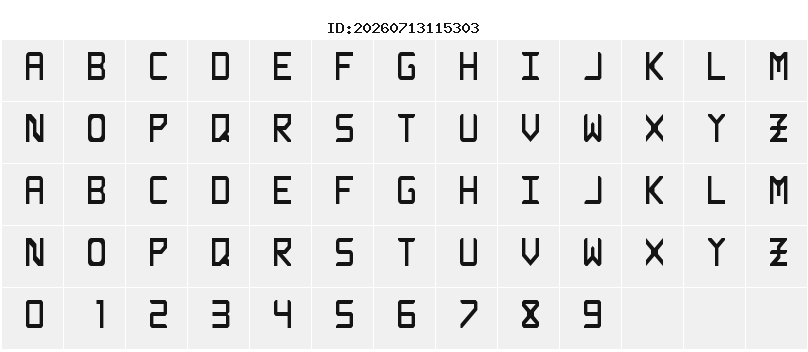
Rabbid Highway Sign Caps Narrow Preview
• Font Name: Rabbid Highway Sign Caps Narrow
• Full Font Name: Rabbid Highway Sign Caps Narrow Regular
• Designer: Robert Jablonski
• Description: ‚ÄúRabbid Highway Sign Caps Narrow‚Äù was built with FontStruct ‚ÄúRabbid Highway Sign Caps Narrow‚Äù is based on ‚ÄúRabbid Highway Sign Caps‚Äù by ‚ÄúRobert Jablonski‚Äù (http://fontstruct.com/fontstructors/rabbidbahh)
About Rabbid Highway Sign Caps Narrow.ttf
Rabbid Highway Sign Caps Narrow.ttf is a modern, elegant sans-serif font designed for ultimate readability and visual harmony. Perfect for branding, headlines, web design, and print materials.